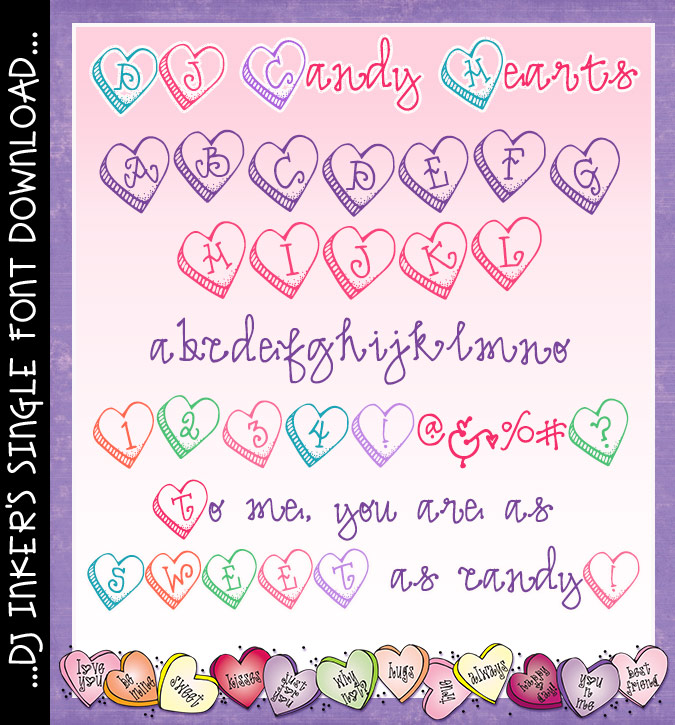
Want to taste some deliciously cute lettering? DJ Candy Hearts font is perfect for a sweet Valentine 'conversation' or love letter. Making cards, gifts, party decorations and bulletin boards will be a real treat!